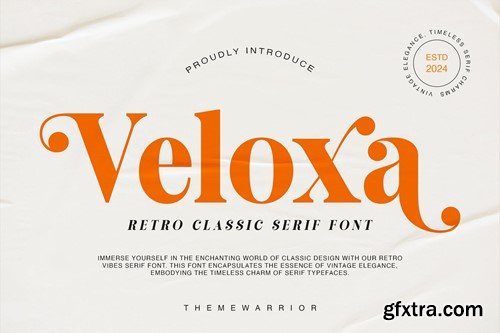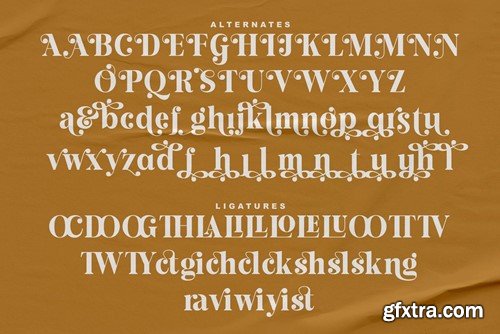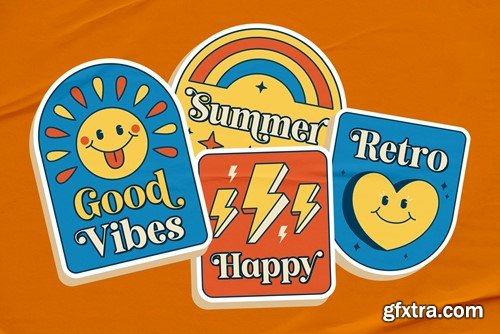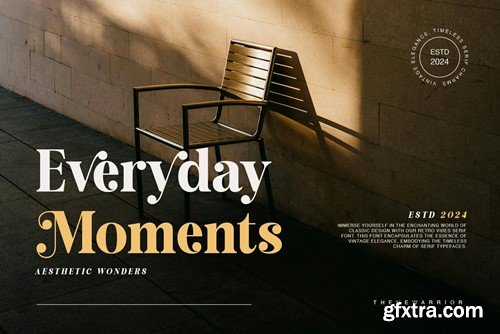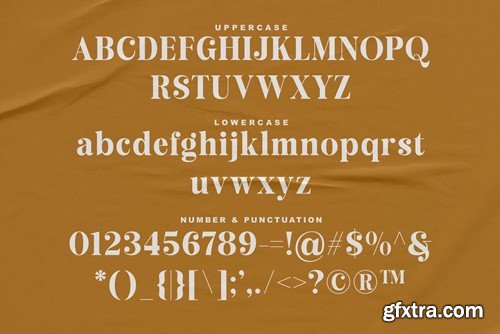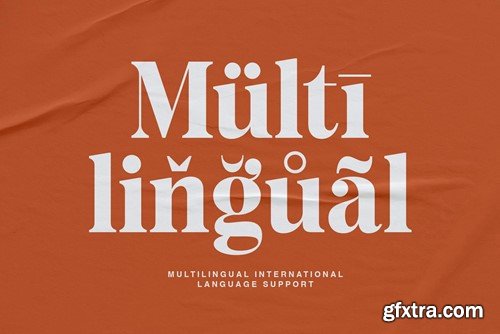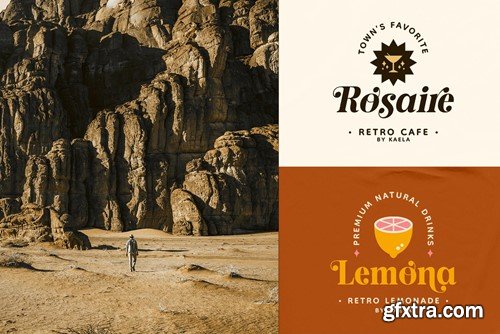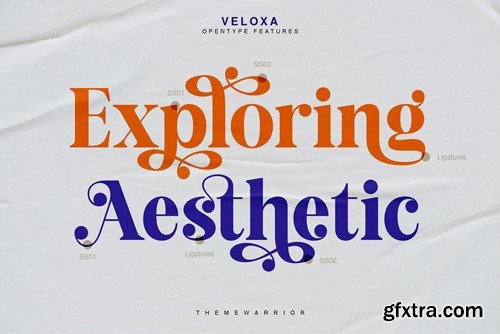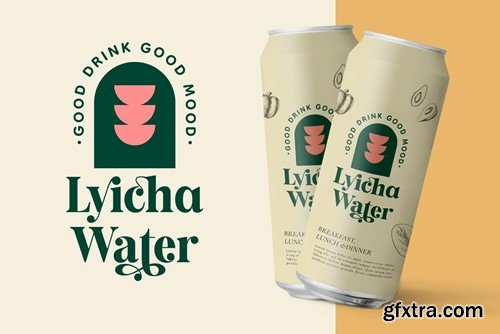
Veloxa - Retro Classic Serif Font CGF7H9F
Veloxa - Retro Classic Serif Font
Veloxa is a retro classic serif font that comes with its sleek lines and sophisticated curves. Vela exudes luxury and refinement, making it the perfect choice for fashion magazines, branding, editorial layouts, and haute couture advertisements. Elevate your designs with Veloxa's timeless appeal, whether you're crafting sleek logos, chic fashion labels, or captivating runway presentations.
Features
• Uppercase & lowercase
• Regular & Italic fonts
• Numbers
• Punctuations
• Ligatures
• Alternates
• Multilingual support